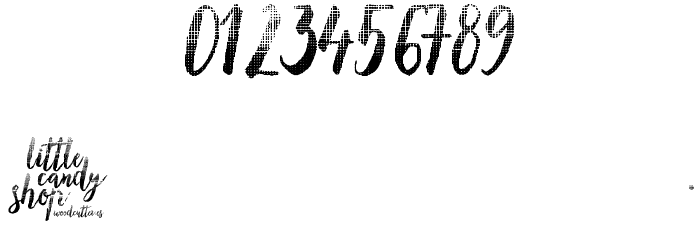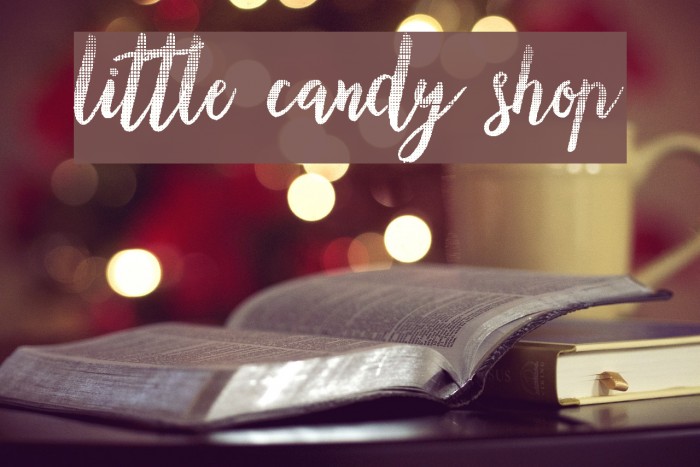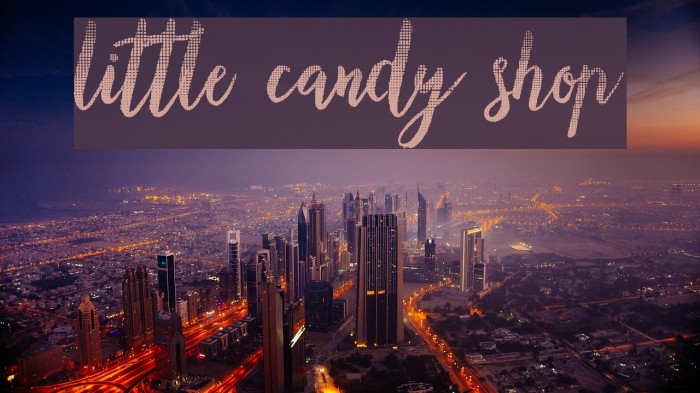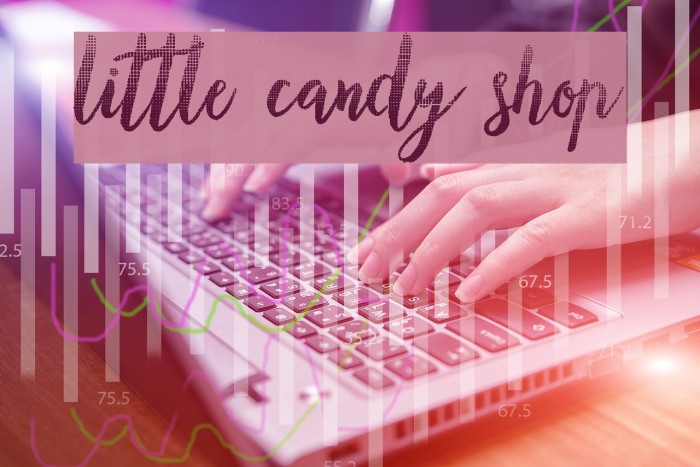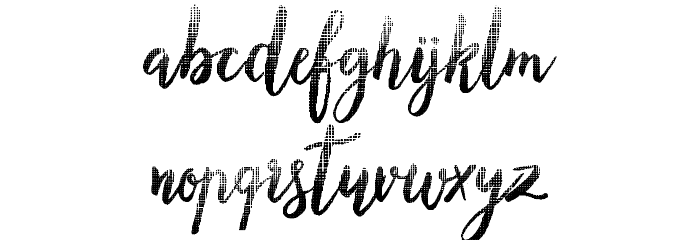
Little Candy Shop Font
Little Candy Shop Description
This font exudes a playful and whimsical charm, characterized by its handwritten script style. The letters are fluid and connected, giving a sense of movement and liveliness. Each character is crafted with a brush-like texture, adding a touch of artistic flair. The strokes vary in thickness, providing a dynamic and engaging visual appeal. This font is perfect for projects that require a personal and friendly touch, such as invitations, greeting cards, or branding for creative businesses. Its unique style makes it stand out, while still maintaining readability.
A playful, handwritten script font with brush-like texture and dynamic strokes from Uncategorized fonts.
- Proposed Projects: Ideal for invitations, greeting cards, creative branding, and personal projects.
- Use Case: Logos, Headlines, Invitations